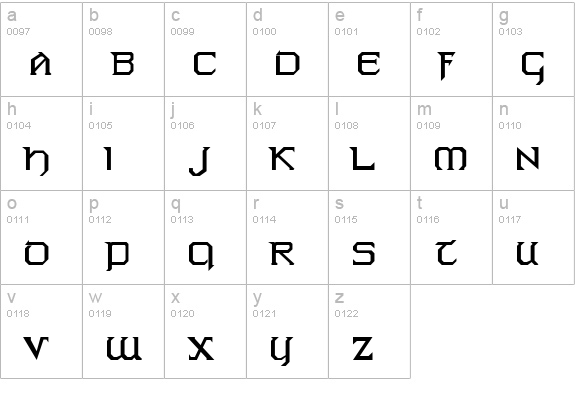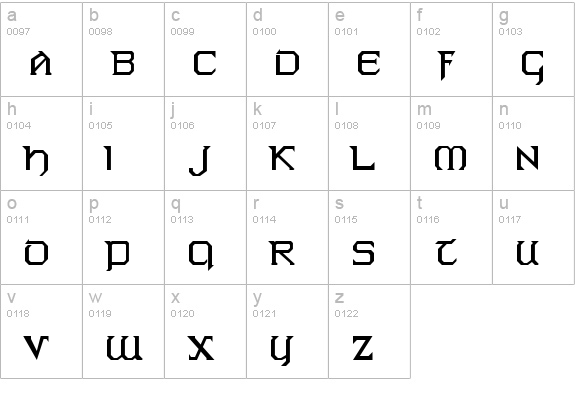
Warlords Normal Font Details
Warlords Normal is the standard, neutral variant in the Warlords typeface family \xE2\x80\x94 well suited to general body text, paragraphs, and standard typographic work.
Warlords Normal font is a captivating and versatile typeface that captures the essence of strength and power. With its bold and commanding letterforms, it is the perfect choice for headlines, logos, and titles that demand attention. The Warlords Normal font exudes a sense of authority and dominance, making it well-suited for projects that require a strong and impactful presence. Its sharp edges and distinct lines add a touch of modernity, giving any design a contemporary edge. This font is not only visually striking but also highly legible, ensuring that your message is delivered with clarity and impact. Whether used in print or digital media, Warlords Normal font will make a lasting impression on your audience. One of the most appealing aspects of Warlords Normal font is that it is freely available to download at FontsMarket.com. This means that you can easily access this powerful font without any cost, making it an excellent choice for designers and creatives on a budget. So, if you are looking for a font that combines strength, visual appeal, and affordability, look no further than Warlords Normal font. Download it today from FontsMarket.com and unleash its commanding presence in your next design project.